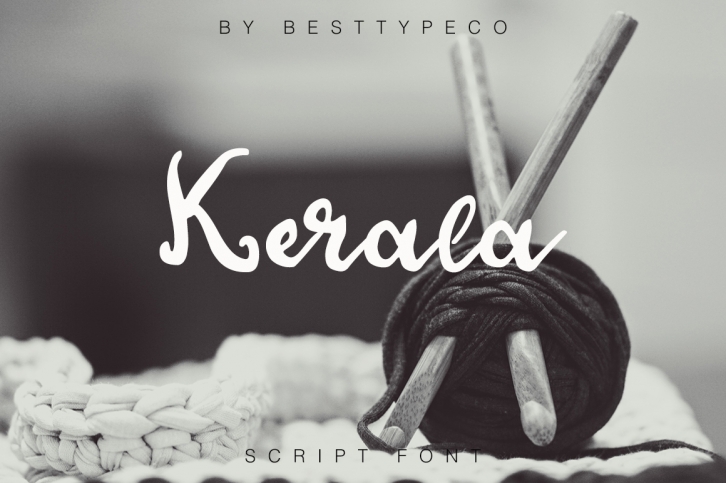
Kerala is a trendy and unique font with an authentic style. It was designed by Fancy Fonts and it's a great choice for creative people who need such a font. It was released on May 12, 2017 and the file size is 21.52 MB. Kerala will add an organic vibe to any design idea!